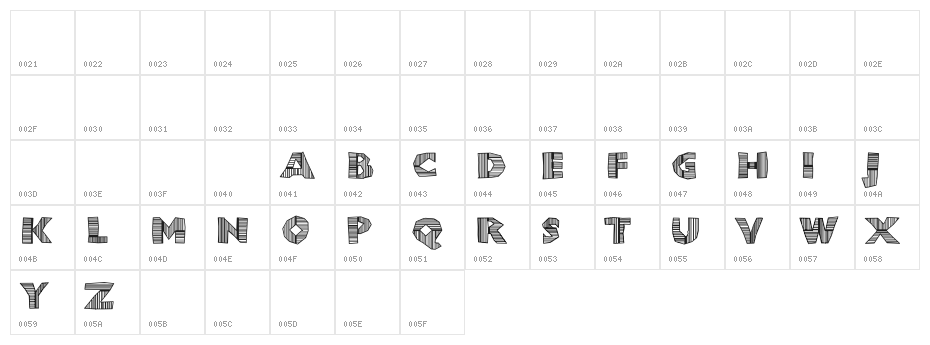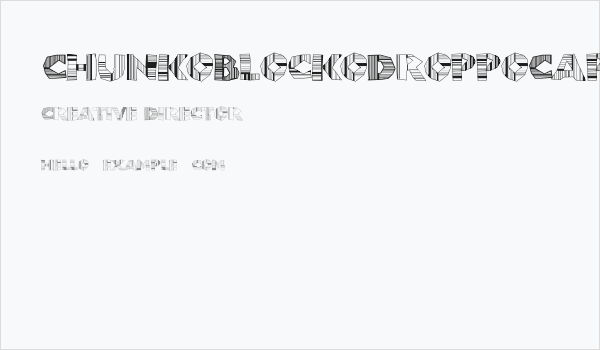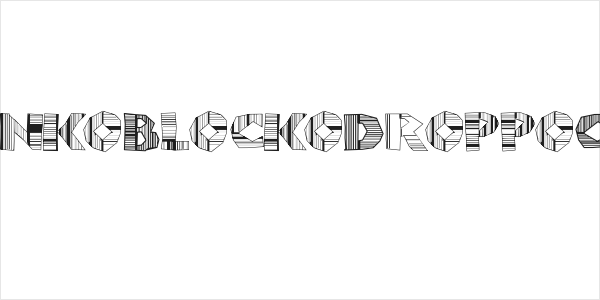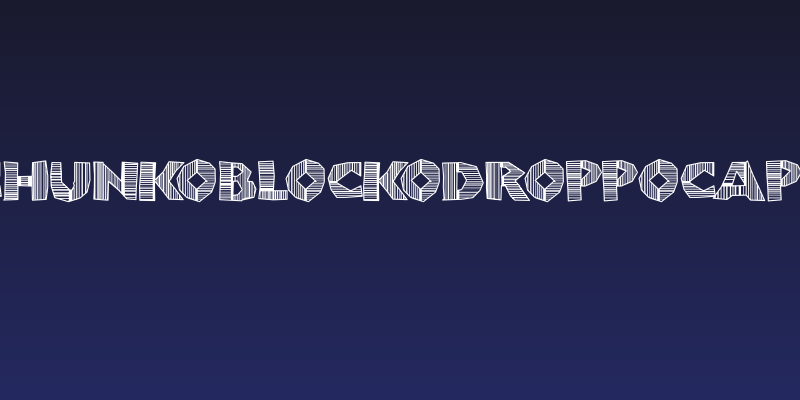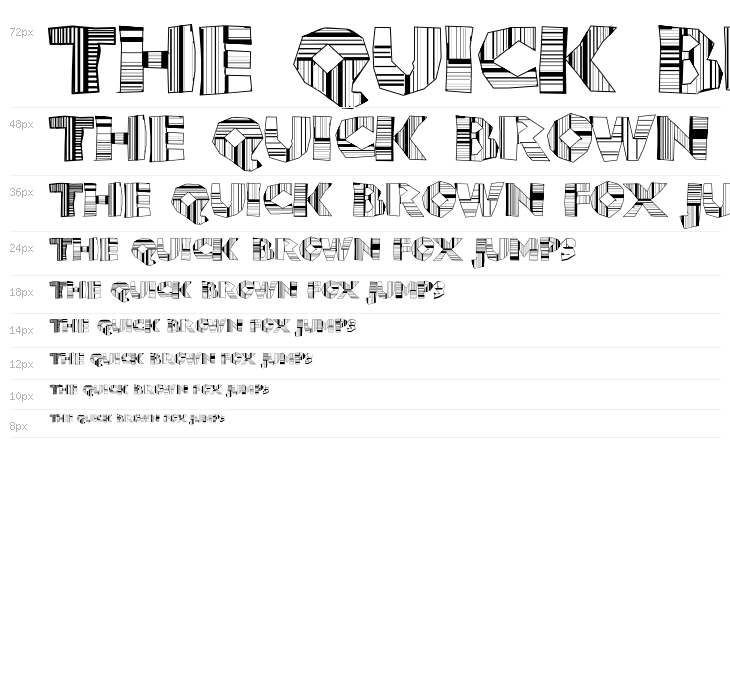
ChunkoBlockoDroppoCapo Font
ChunkoBlockoDroppoCapo Description
This font features a bold and geometric design with a distinct block-like appearance. Each character is composed of thick, angular lines with a striped pattern that adds a sense of depth and texture. The uppercase letters are particularly striking, with a strong presence that commands attention. The font's unique style is both modern and playful, making it suitable for creative projects that require a bold statement. The consistent use of horizontal and vertical lines within each character creates a cohesive look across the entire alphabet.
| Proposed Projects | Ideal for posters, logos, and branding materials that require a bold and modern aesthetic. |